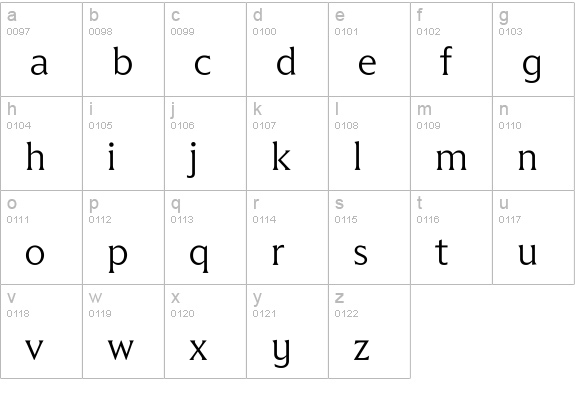
Metro Mayer Serif is a timeless and elegant font that exudes sophistication and professionalism. With its classic serifs and clean lines, this typeface is perfect for creating stylish and refined designs. Whether you're working on a branding project, editorial layout, or any other creative endeavor, Metro Mayer Serif will add a touch of class to your work.